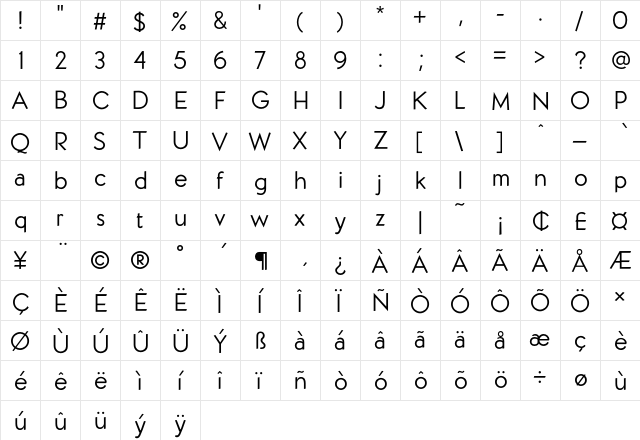
Nicholson Gothic Regular
Design Context for Nicholson Gothic Typeface
Nicholson Gothic takes a clean, functional approach — its unadorned letterforms prioritise legibility and work reliably across screen and print environments.
Font Pairing: Works well alongside a characterful serif or display font that can carry the expressive load while Nicholson Gothic handles the functional copy.
Pro Tip: Use Nicholson Gothic for UI labels, navigation, and short-form body copy where clean legibility is the priority.